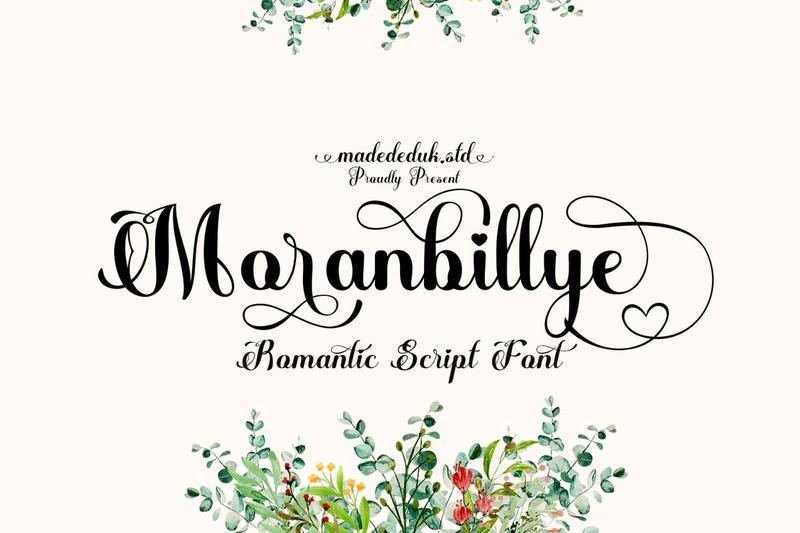
Moranbillye Script X2TD2AT
Moranbillye is a heart script font inspired by classical calligraphy. Crafted with thin consistent strokes, this beautiful script font evokes a sense of romance, luxurious and classy. Its easy to read yet full of personality,or any projects that demand classic with modern style. Is perfectly suited for branding, logotypes, quotes, labels, social media posts, advertisements, product packaging, logo designs, poster, photography, invitation, stationery and whether youre creating digital content or printed materials.
* Uppercase & Lowercase
* Number & Symbol
* International Glyphs
* Alternative
* Ligature